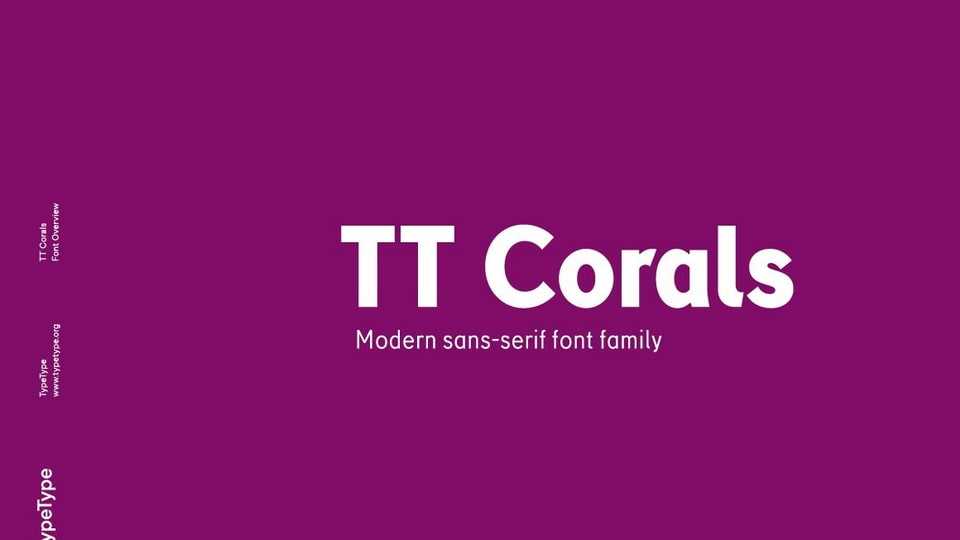
Download TT Corals font, a modern humanistic sans-serif which has many typical traits of the beginning of the 20th century. The distinctive smoothness of the lines and separate elements allows using TT Corals for different design areas.